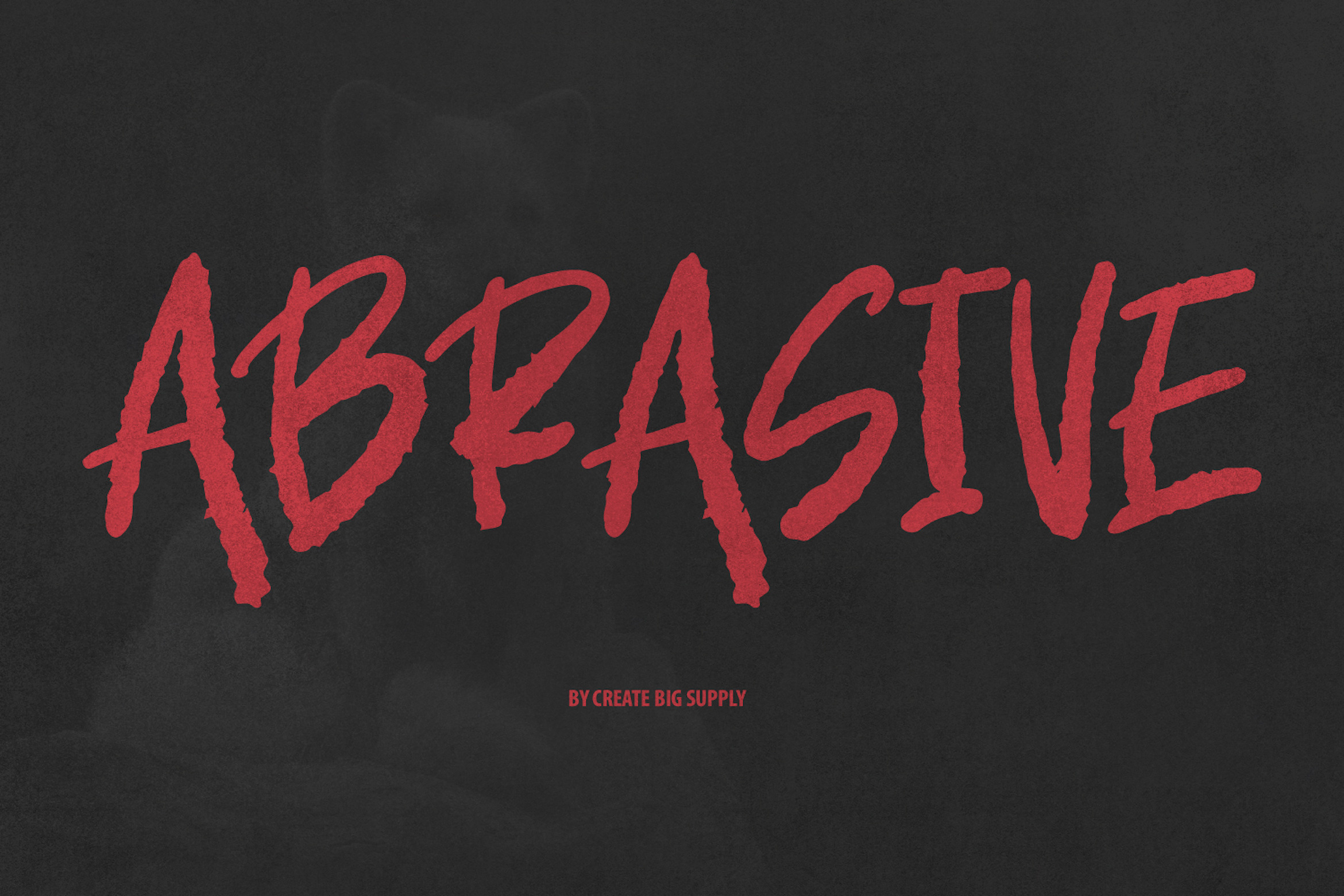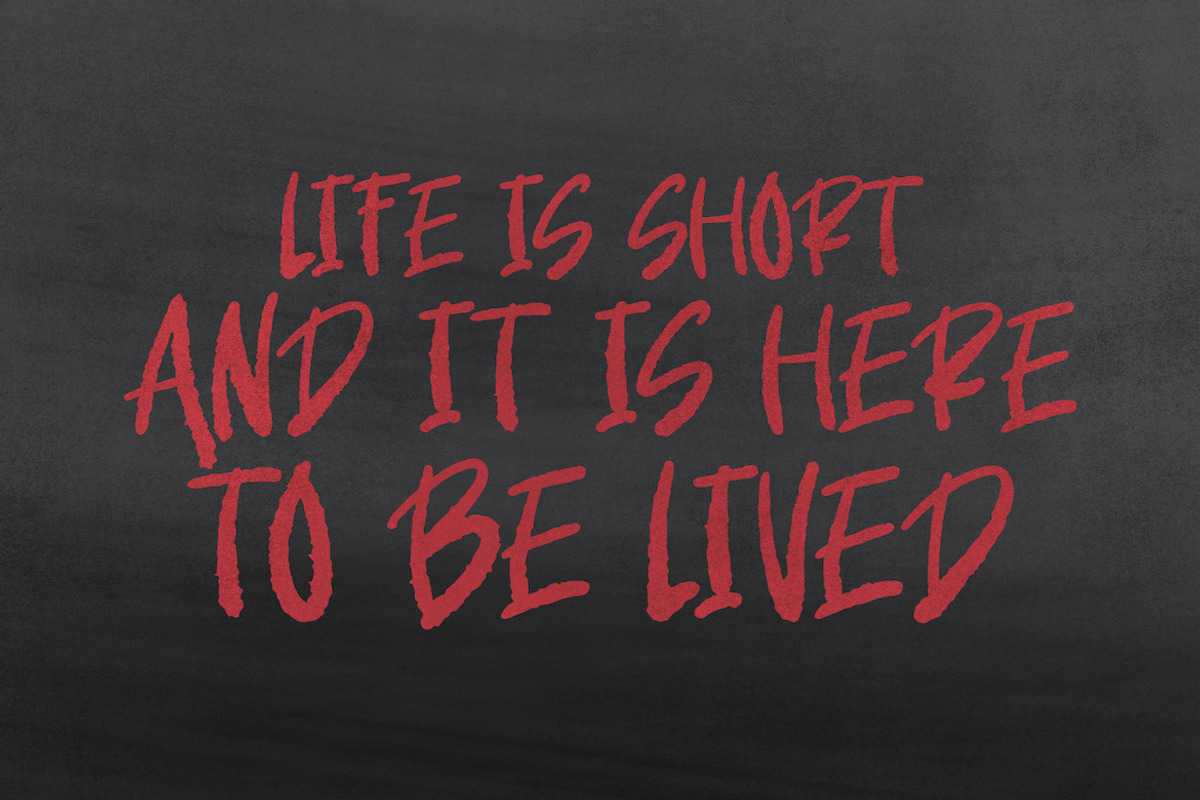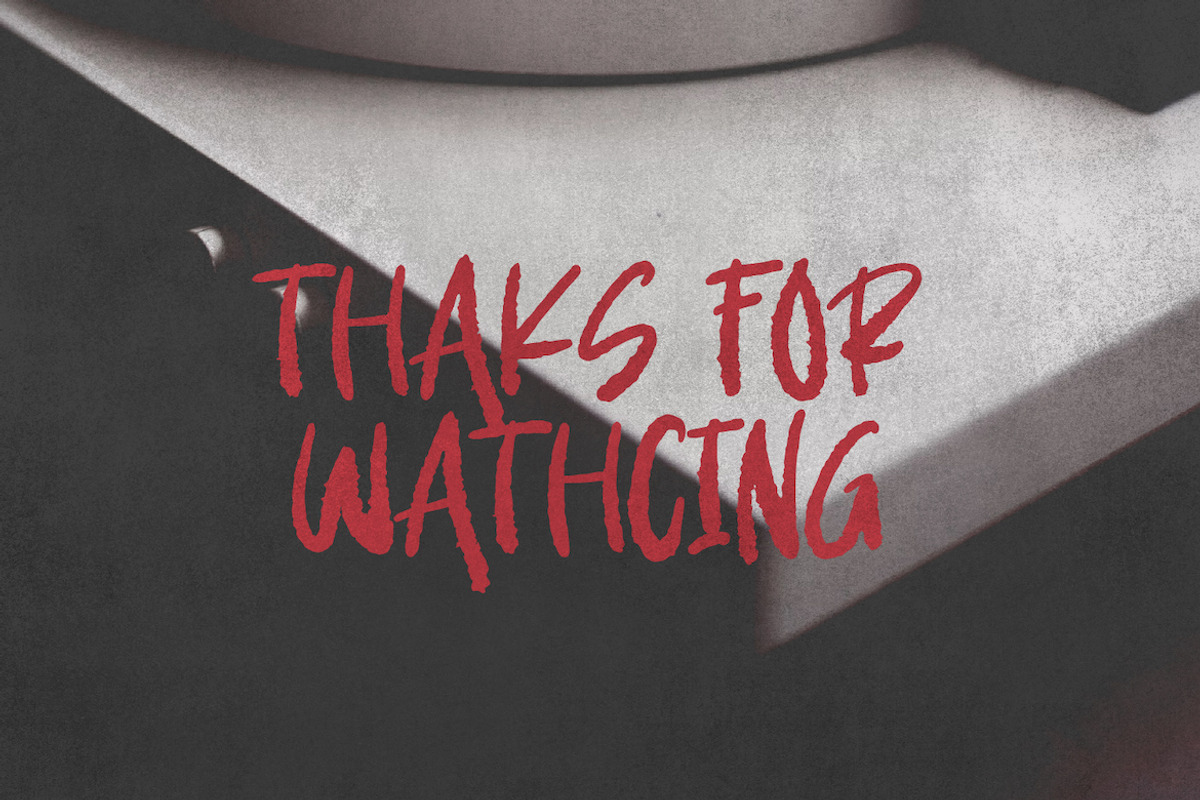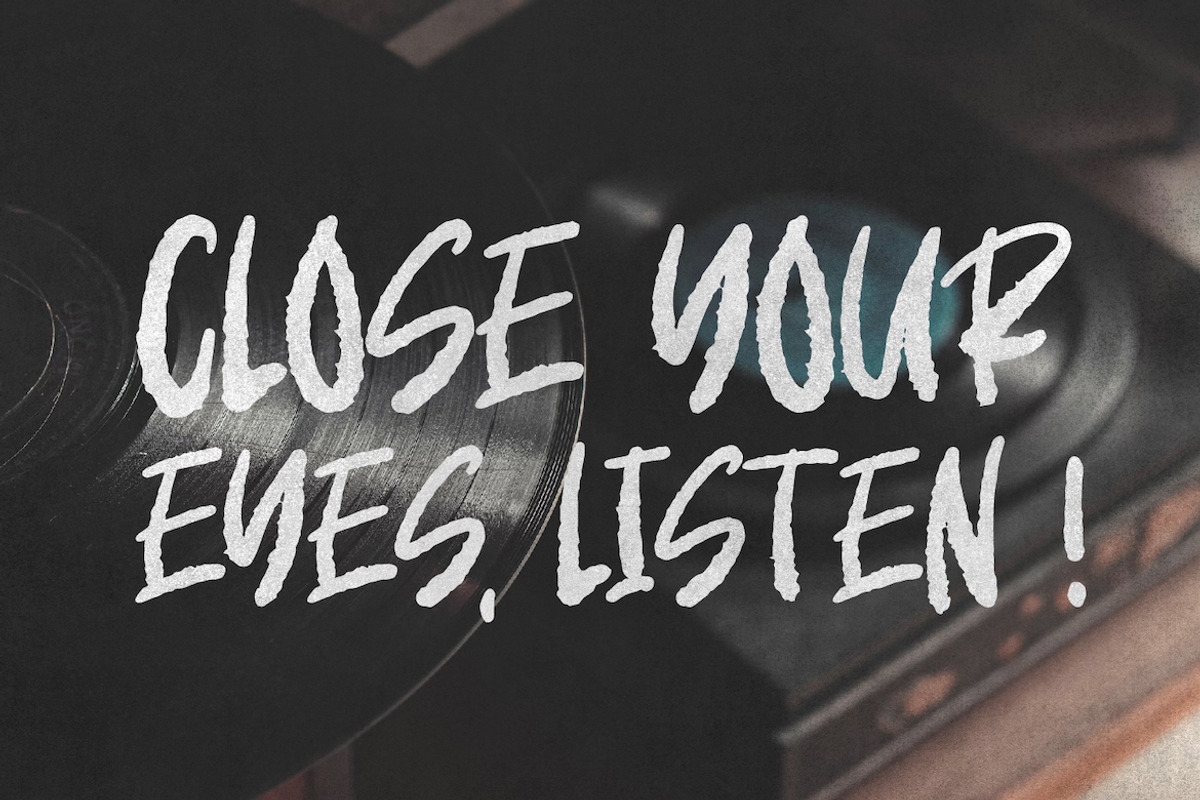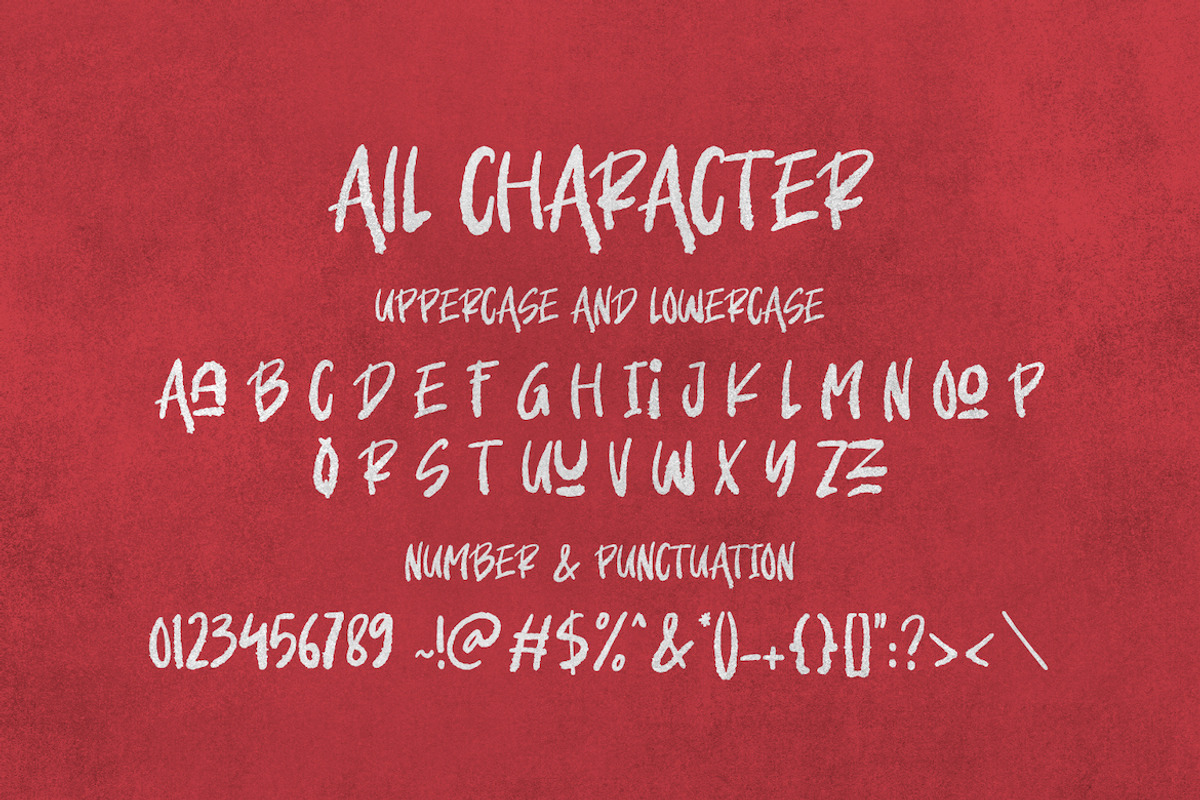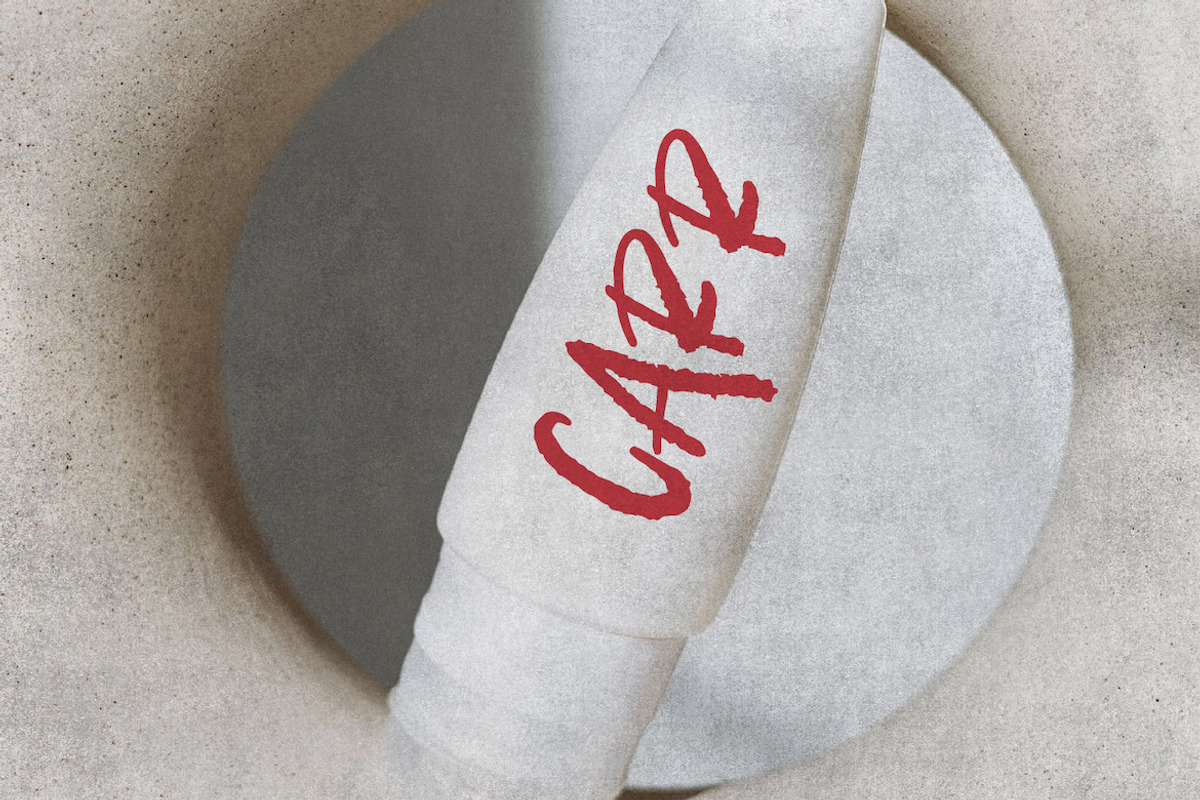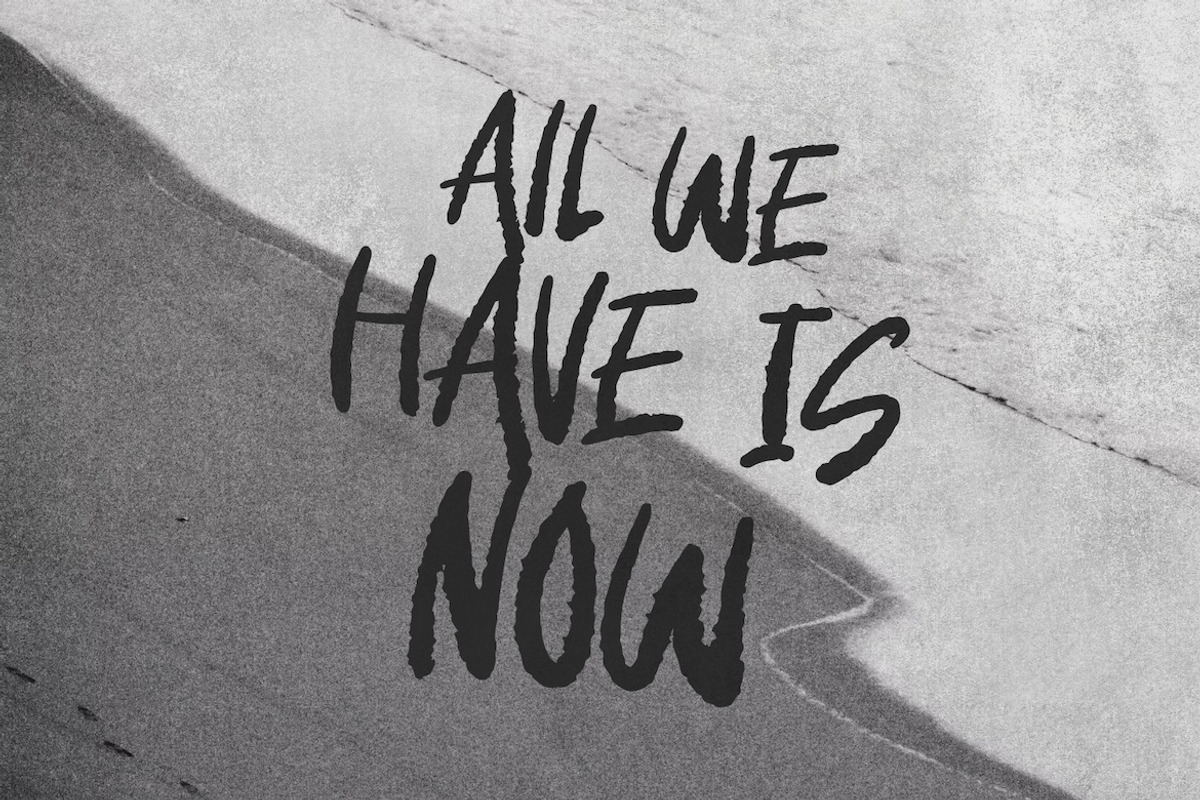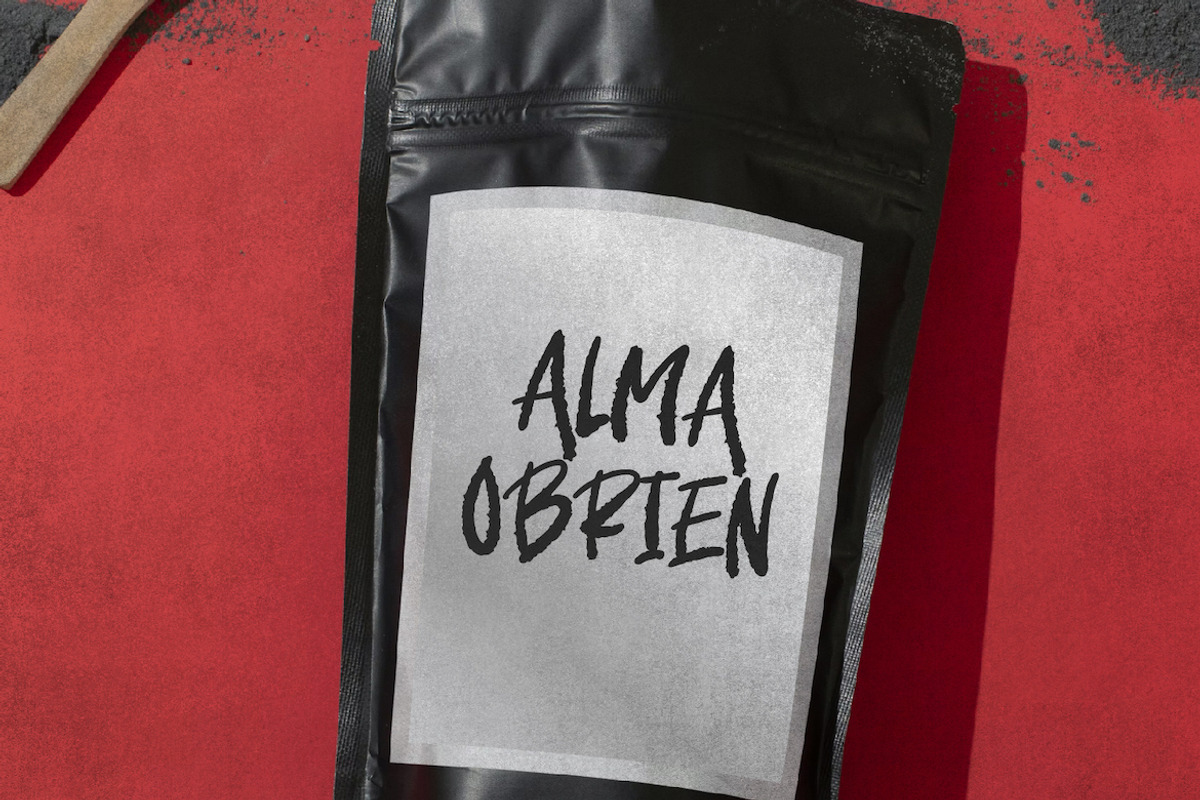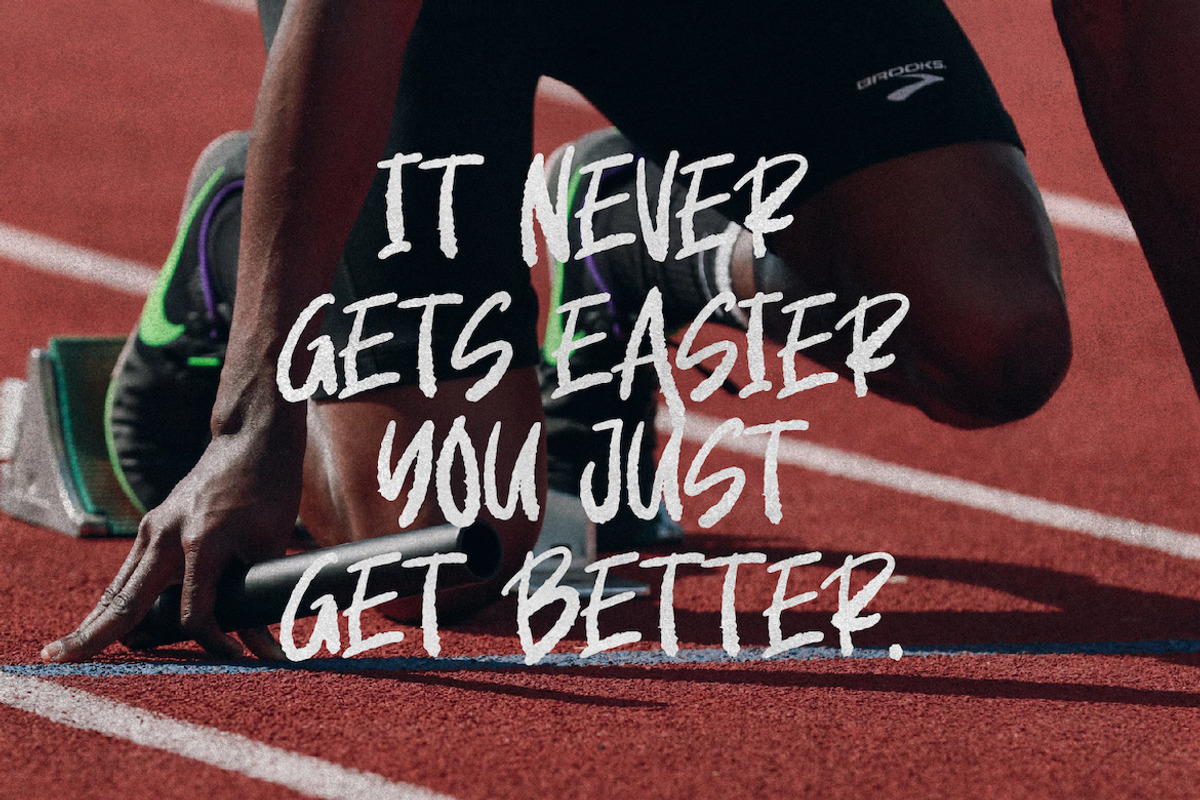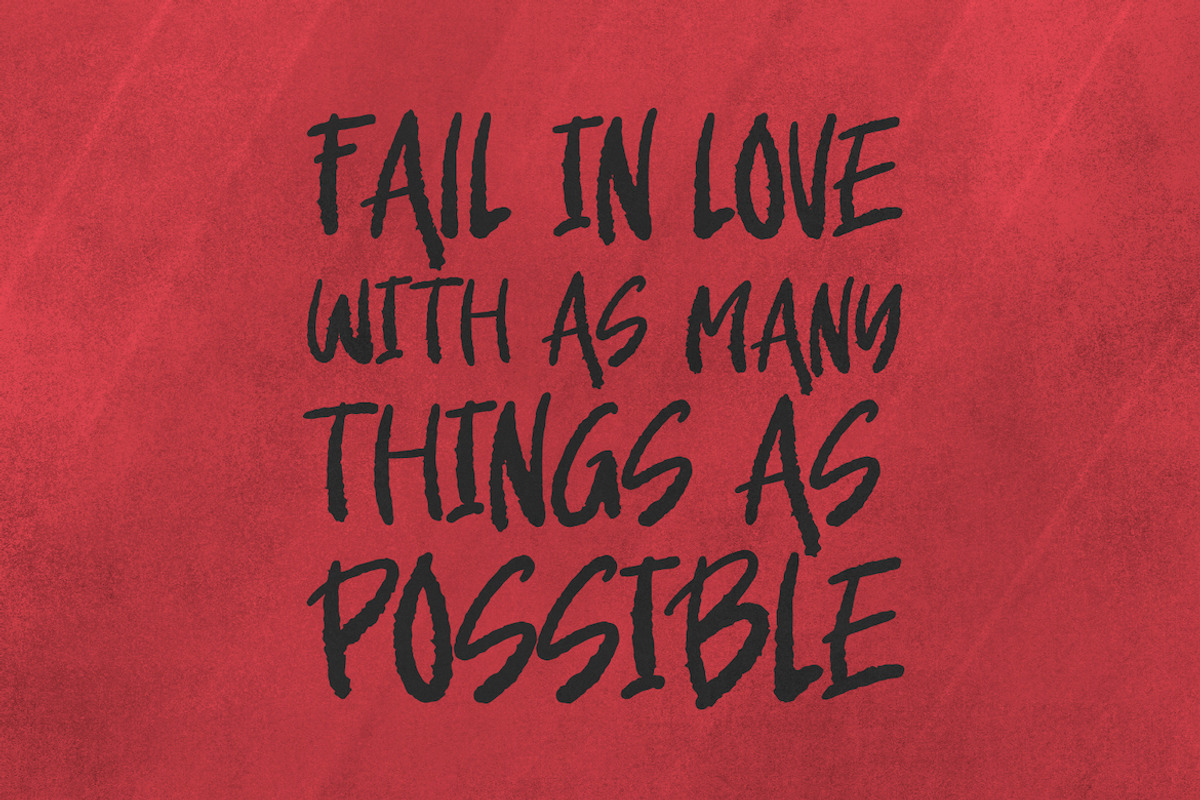
Abrasive - Bold Brush Font
Introducing Abrasive, a powerful brush font designed to make a lasting impression. With its bold and expressive strokes, this font adds a touch of edginess and impact to your designs. Whether you're working on posters, logos, or branding projects, Abrasive delivers a strong visual presence that demands attention. This font features both uppercase and lowercase characters, along with numbers and punctuations, ensuring versatility and creativity in your typographic compositions. Its multilingual support allows you to reach a global audience with ease. Additionally, the PUA encoding provides seamless access to a wide array of glyphs and special characters. Let Abrasive elevate your designs and leave a bold mark on your creative projects.